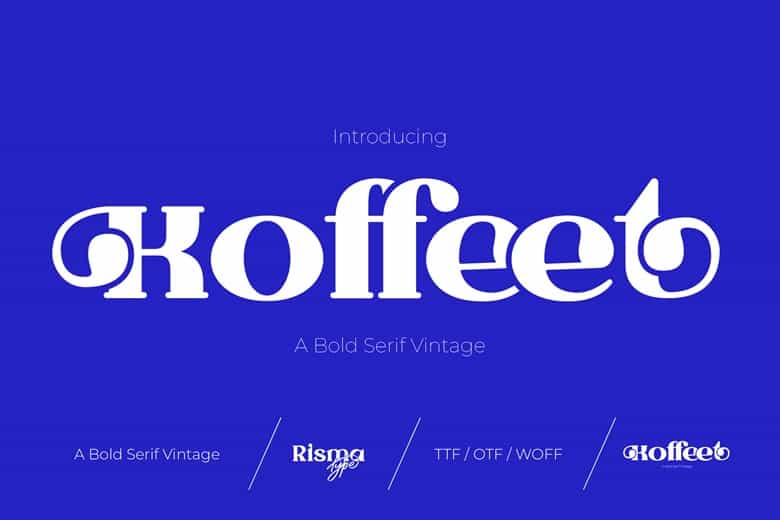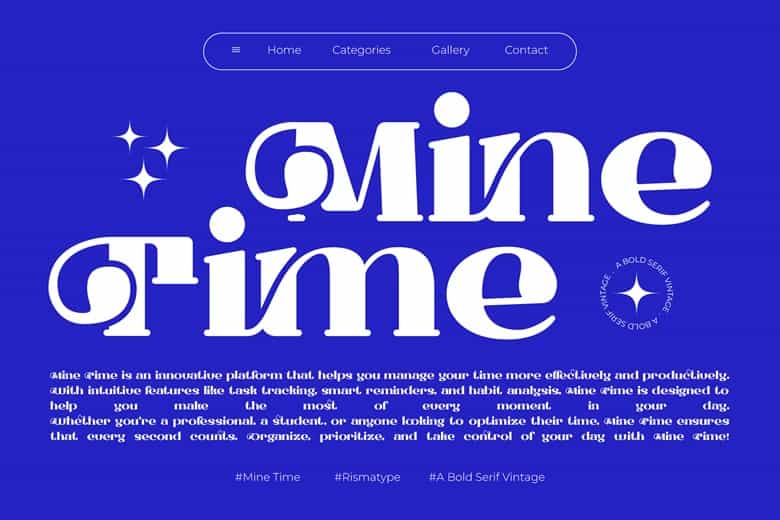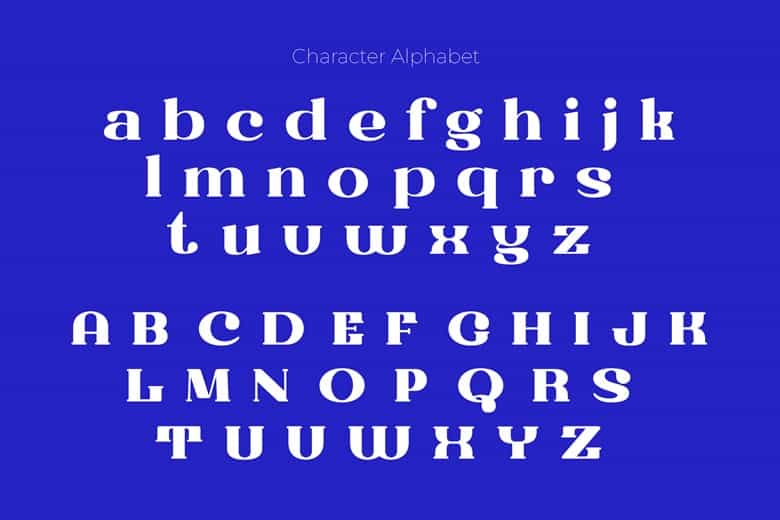
Discover Koffeet Font, part of the Serif Vintage collection—a versatile and unique font perfect for adding a personal touch to your projects. Download it for free and enjoy crafting designs with style, from invitations to social media posts. This font is available exclusively for personal use, giving you the freedom to create without limits. Unlock your creativity with Koffeet Font today!
Koffeet is a bold chic, charming and assertive serif font. It can be used for cartoon designs, children’s games, as well as any design you may have, since it looks very lovely.